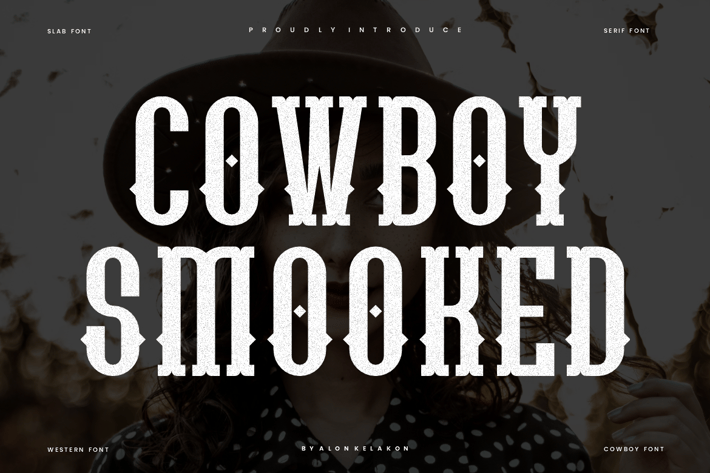
Cowboy Smooked - Western Font
Cowboy Smooked Font is unique . Ready to use for your design like labeling, movie sceen, poster, movie title, gigs, album covers, logos, and much more.